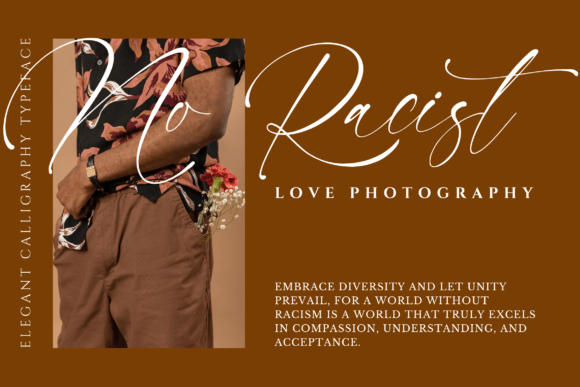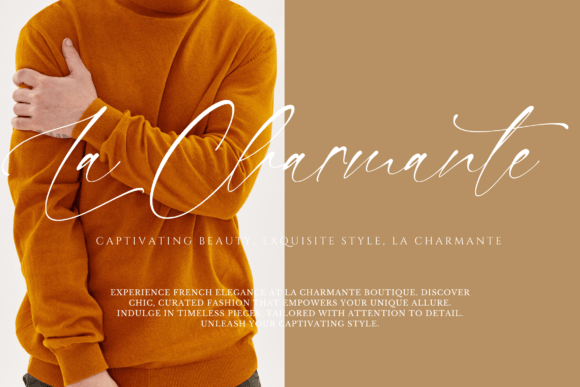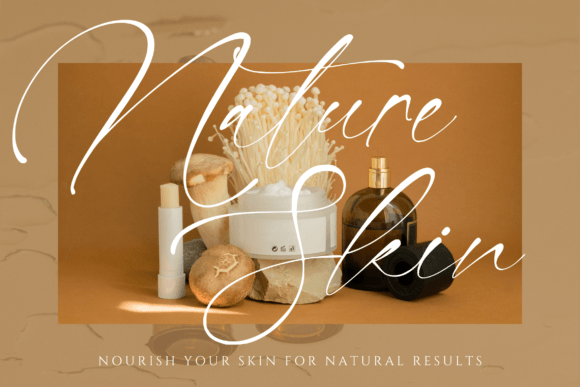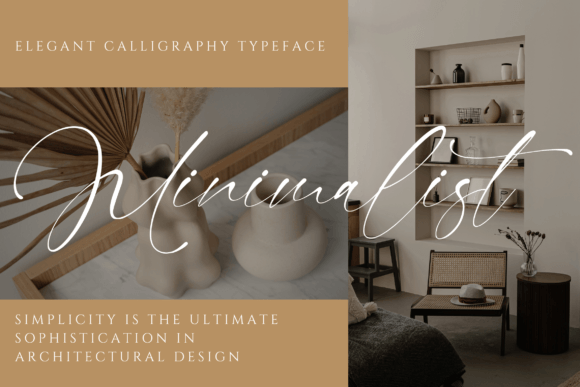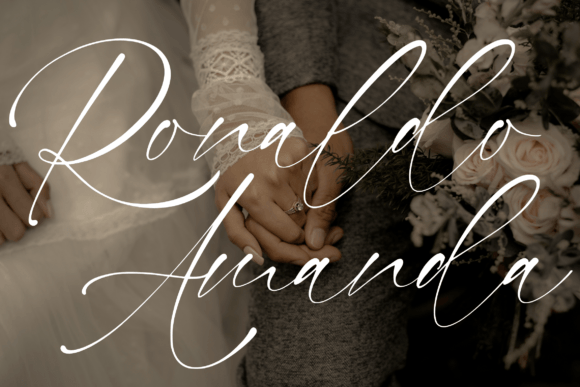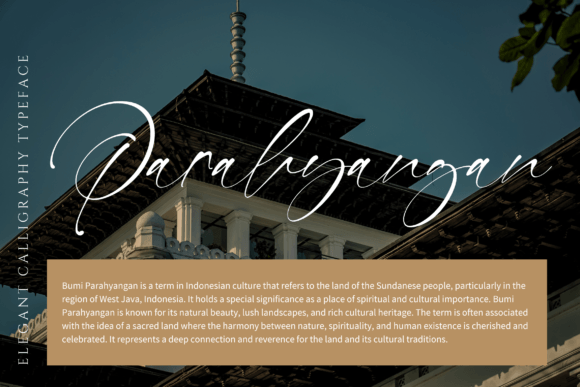
Introducing Daniella Megan: The Epitome of Elegance in Modern Signature Handwriting Fonts
In the realm of typography, few fonts manage to convey the essence of elegance and sophistication as effectively as Daniella Megan. This captivating modern signature handwriting font has been turning heads with its graceful curves and stylish flourishes, making it an instant favorite among designers, crafters, and anyone looking to add a touch of class to their projects. Whether you’re working on logos, branding, invitations, or any other creative endeavor, Daniella Megan is poised to become your go-to choice.
The Making of a Timeless Font
Daniella Megan is more than just a font; it’s a statement piece. Crafted with meticulous attention to detail, this modern signature handwriting font embodies the perfect balance between contemporary flair and timeless elegance. Its design is inspired by the beauty of handwritten scripts, yet it maintains a level of sophistication that is hard to achieve with digital typography. Each letter is a masterpiece of curve and line, flowing seamlessly into the next to create a fluid, dynamic look that captures the eye.
One of the standout features of Daniella Megan is its incredible versatility. This font isn’t just limited to one or two specific uses; rather, it can elevate a wide range of projects. Imagine using Daniella Megan for:
- Logos and Branding: Instantly elevate your brand’s image with a sophisticated and memorable logo that speaks to your audience.
- Invitations and Announcements: Add a touch of class to your wedding invitations, event announcements, or any special occasion with a personal and elegant touch.
- Packaging and Product Design: Stand out on store shelves with product labels and packaging that exude luxury and refinement.
- Marketing Materials: From brochures to business cards, Daniella Megan can add a level of sophistication that sets your marketing materials apart.
Why Designers and Crafters Love Daniella Megan
Designers and crafters are always on the lookout for fonts that can help their creations stand out. Daniella Megan ticks all the right boxes:
- Ease of Use: Daniella Megan is incredibly easy to use, even for those who might not be seasoned typography experts. Its clear and distinct letterforms ensure that your message is conveyed with clarity and style.
- Customization: With a range of variations and ligatures, Daniella Megan offers ample opportunities for customization. This allows designers to tailor the font to fit the specific needs of their project.
- Cross-Platform Compatibility: Daniella Megan is designed to work seamlessly across various platforms and devices, ensuring that your work looks great everywhere.
Bringing Your Vision to Life with Daniella Megan
The true power of Daniella Megan lies in its ability to bring your vision to life. Whether you’re aiming to create a cohesive brand identity, craft beautiful wedding invitations, or design eye-catching packaging, this font provides the perfect foundation. Its elegance and sophistication are contagious, inspiring creativity and elevating the overall aesthetic of your project.
Daniella Megan is not just a font; it’s a tool for creative expression. Its blend of modernity and elegance makes it a versatile asset for any designer or crafter looking to add a touch of sophistication to their work. With Daniella Megan, the possibilities are endless. Explore its potential, and discover how this captivating modern signature handwriting font can transform your projects into timeless pieces of art.